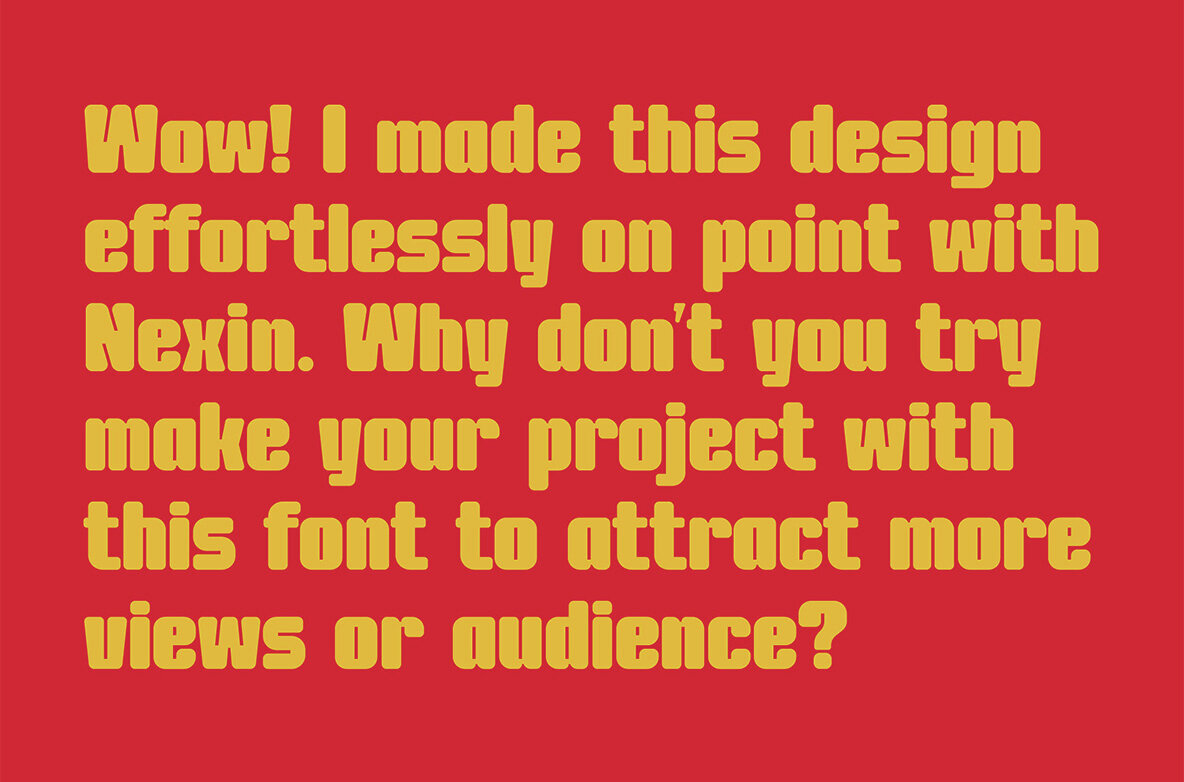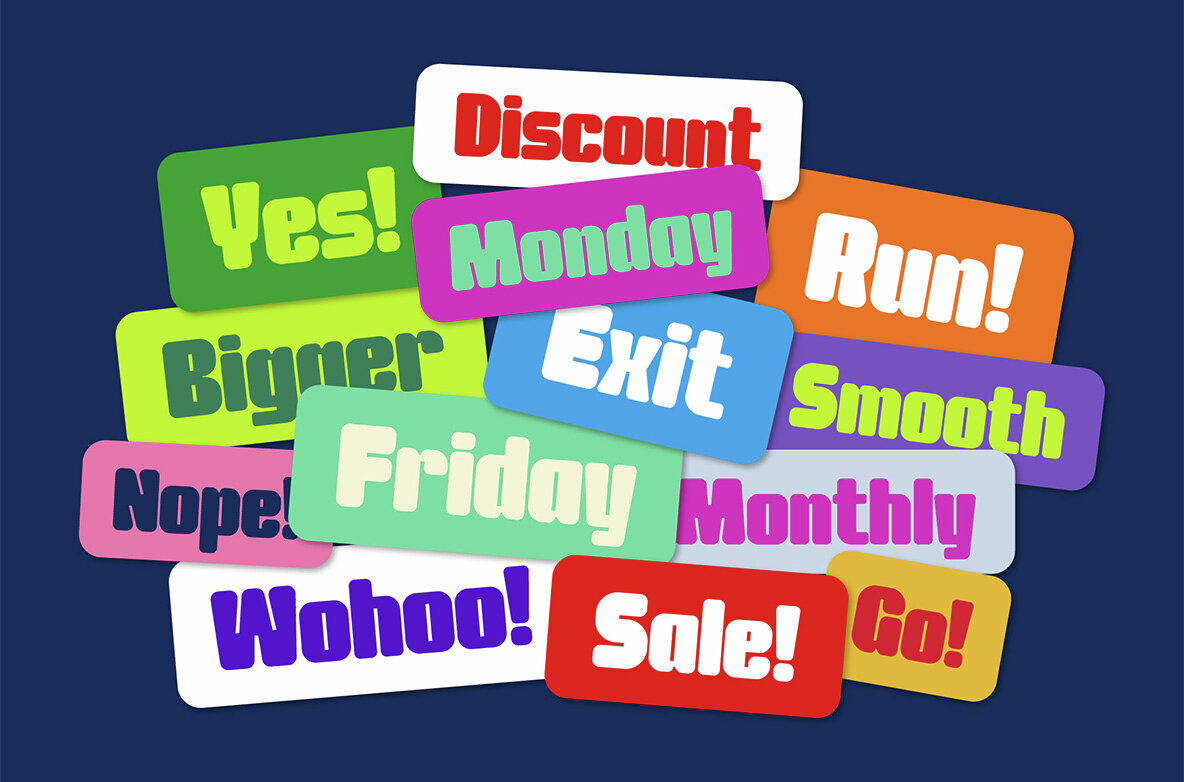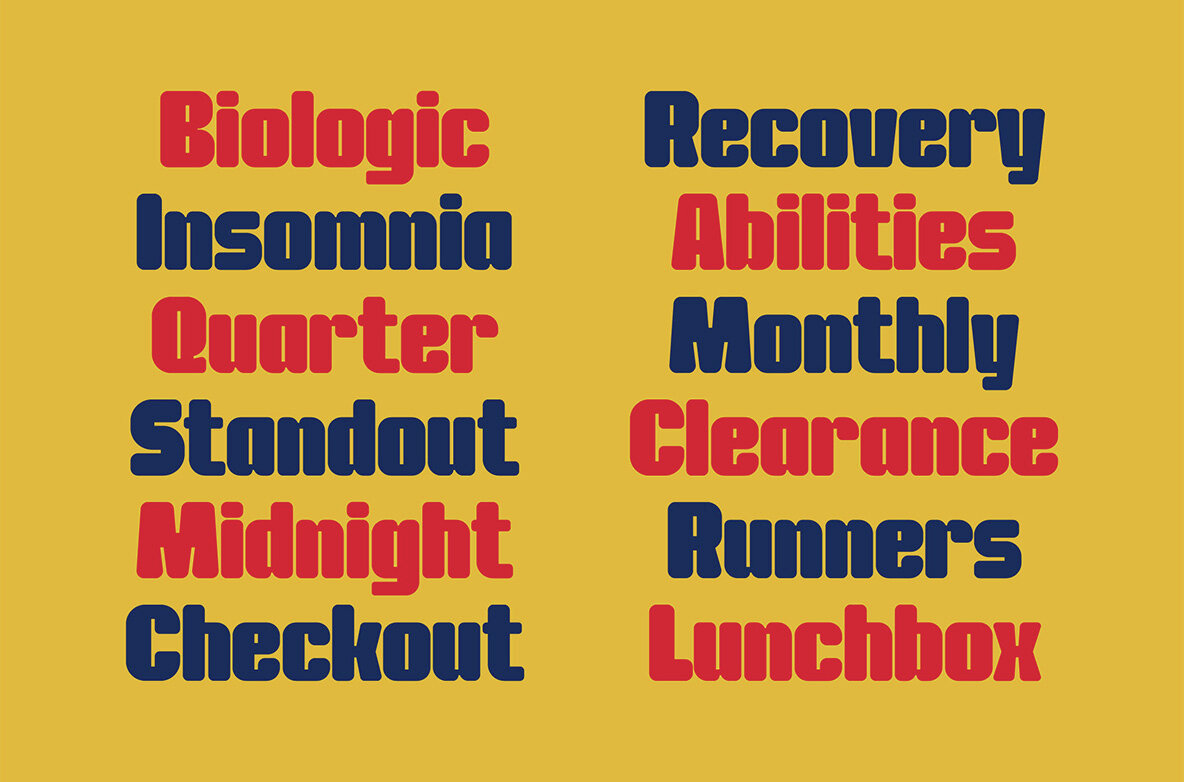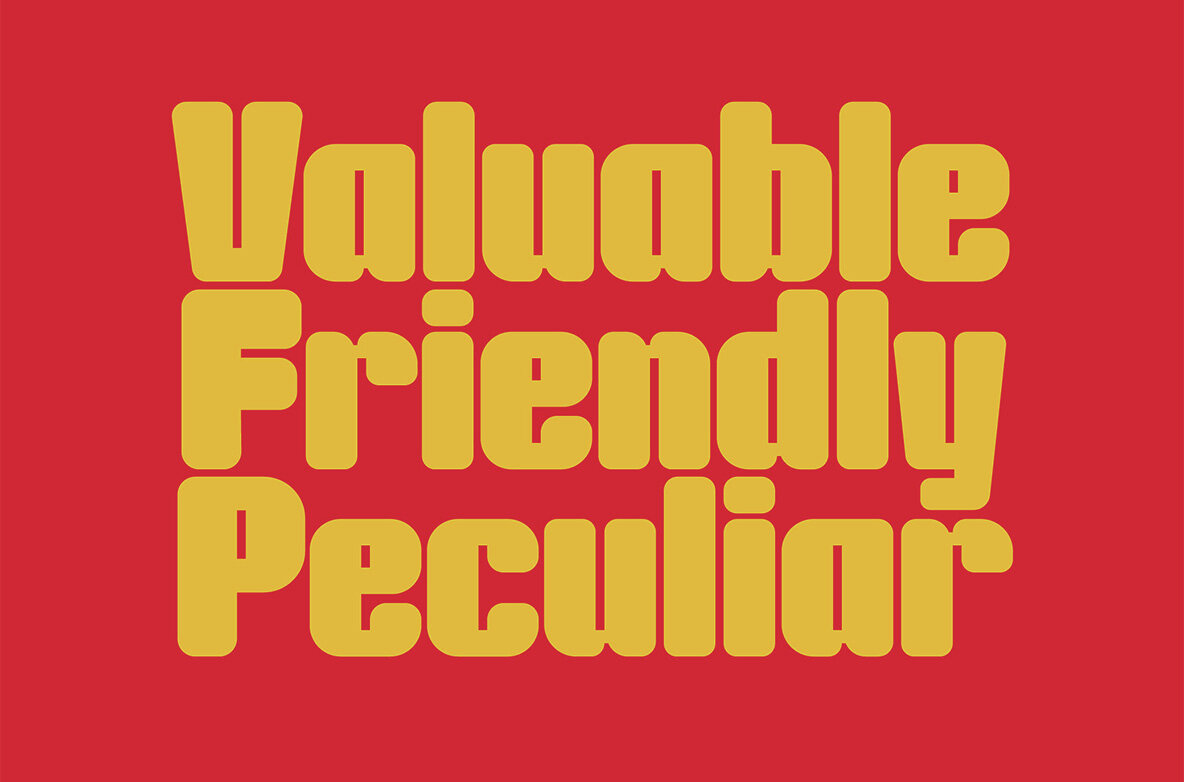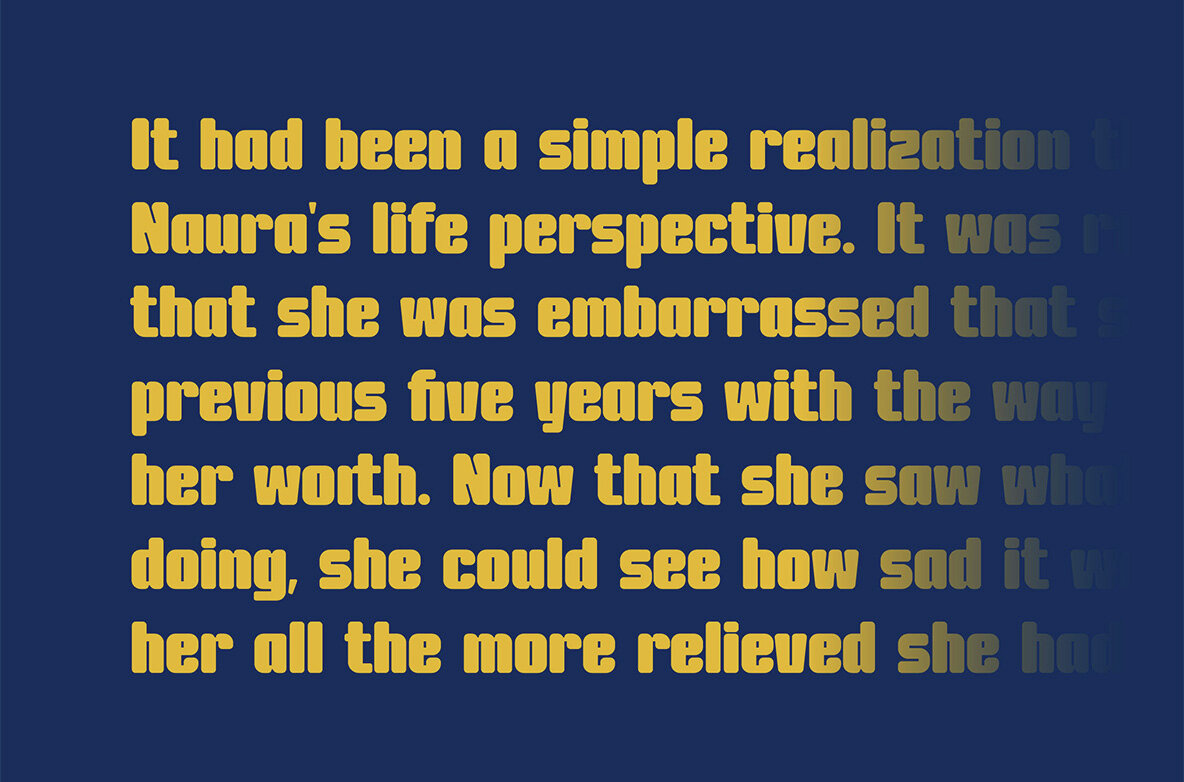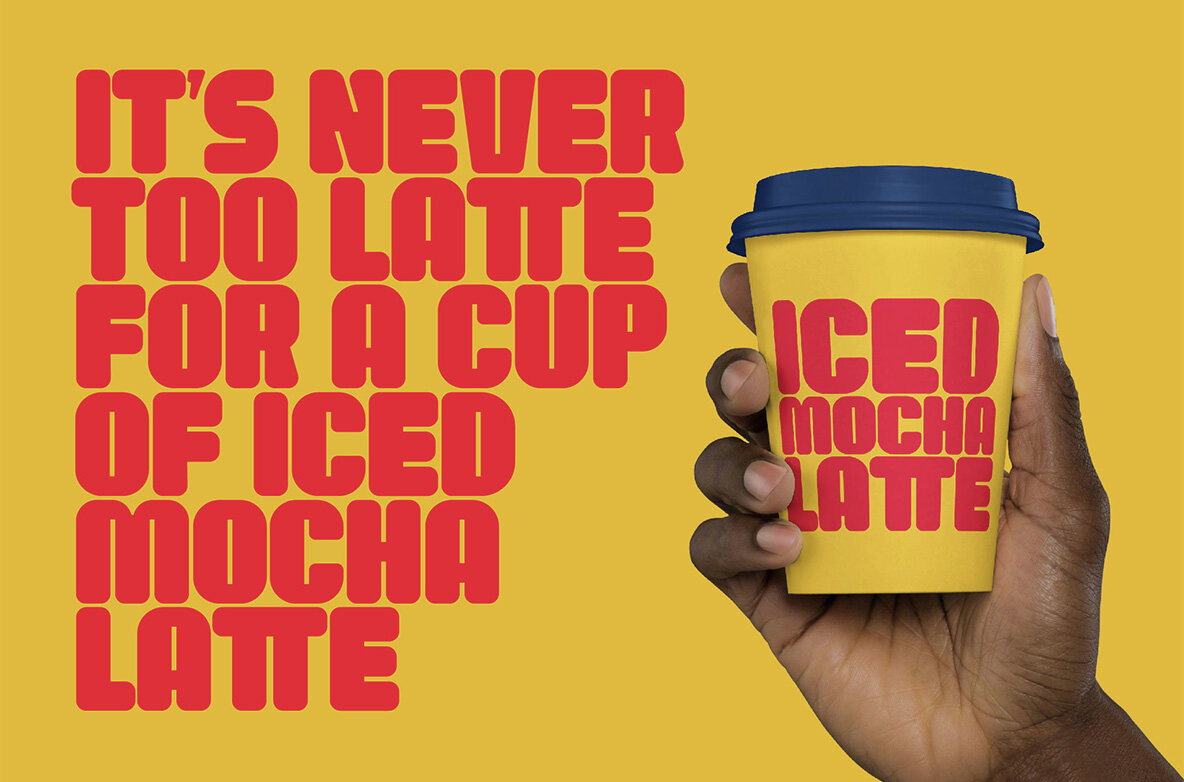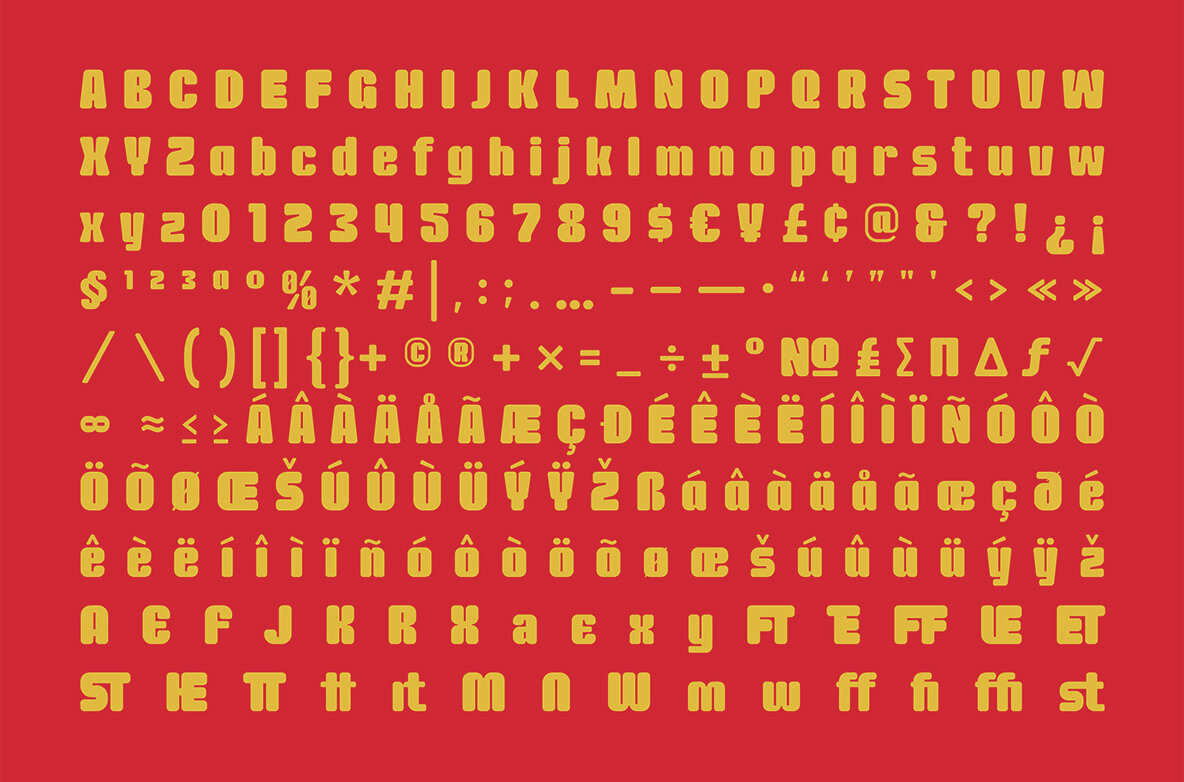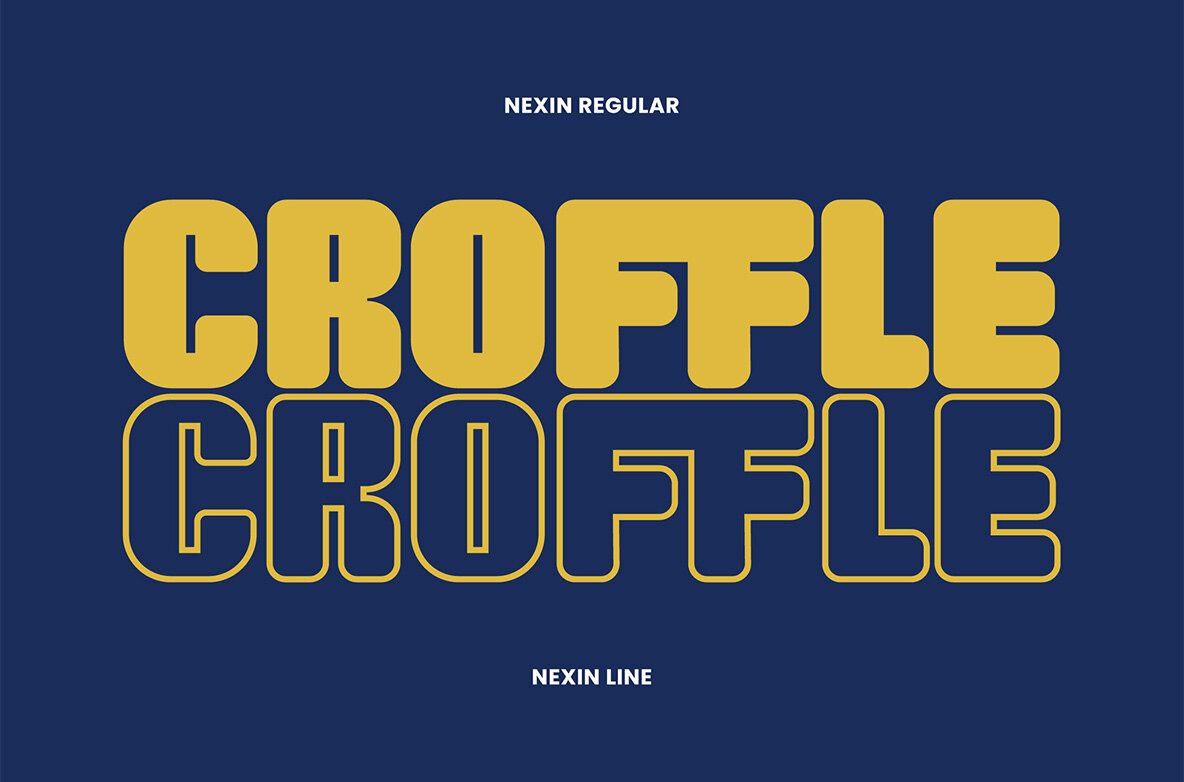
Nexin Font
Nexin is a modern and playful bubble font that captivates attention with its rounded edges and bubbly demeanor. Each letter is delicately crafted to resemble inflated bubbles, creating a lighthearted and whimsical atmosphere. The font exudes a sense of friendliness and approachability, making it perfect for projects aimed at a younger audience or those seeking a more casual and cheerful tone. With Nexin, adding a touch of fun and creativity to any design. Its smooth curves and ample spacing between letters ensure readability while maintaining its unique charm. Whether used for headlines, logos, or signage, Nexin injects a sense of joy and positivity into your visual creations.